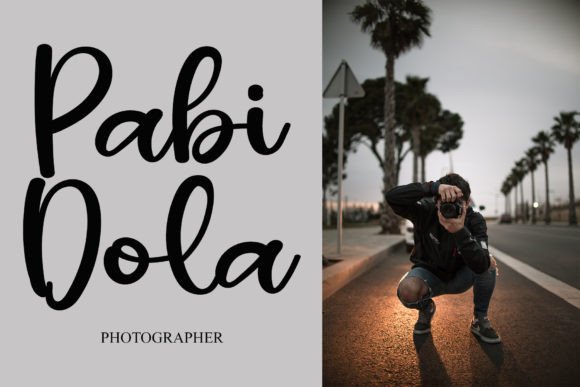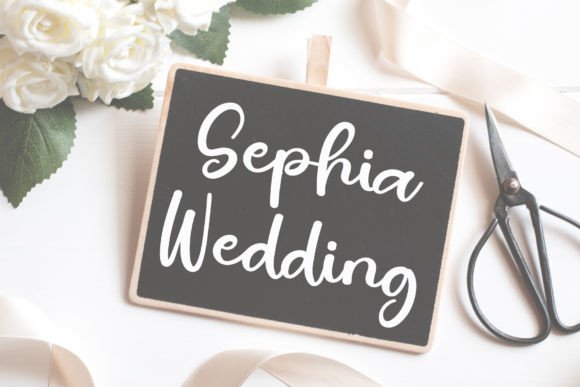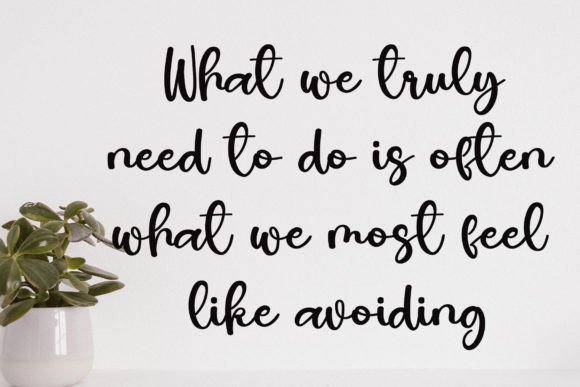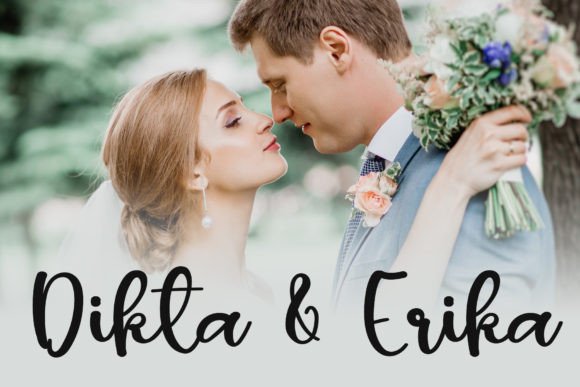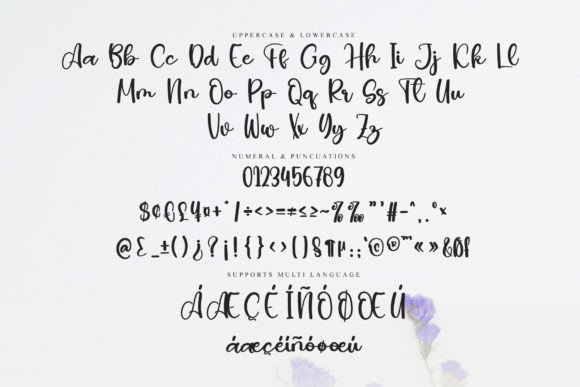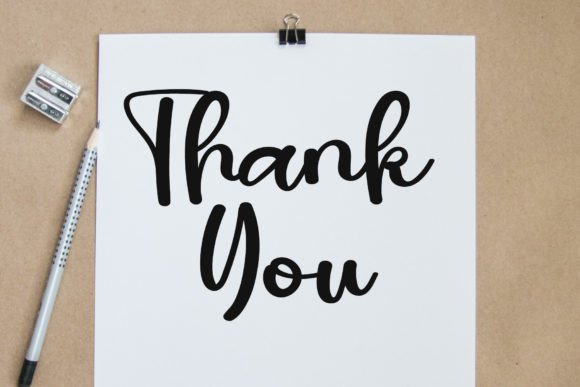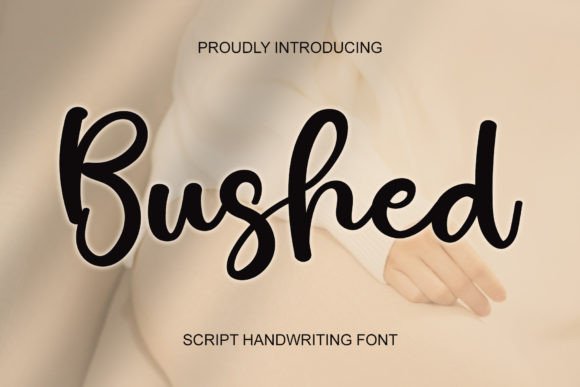
Introducing Bushed Font: Elevate Your Designs with Timeless Elegance
Are you on the hunt for a font that exudes sophistication and style? Look no further than Bushed Font, a stunning handwritten typeface that brings a touch of classic calligraphy to the modern era. With its impeccable form and balanced design, Bushed is the perfect choice for designers and crafters seeking to add a dash of elegance to their projects.
The Inspiration Behind Bushed Font
Bushed Font draws inspiration from the timeless world of classic calligraphy, where the art of beautiful handwriting meets the precision of typography. The creators of Bushed have masterfully captured the essence of traditional calligraphy, infusing it with a contemporary twist that makes it perfect for modern designs. The result is a font that feels both nostalgic and fresh, versatile and sophisticated.
Key Features of Bushed Font
- Stylish Handwritten Design: Bushed boasts a beautiful, handwritten appearance that adds a personal touch to any project. Its elegant strokes and fluid connections make it a joy to use for both digital and print applications.
- Contemporary Atmosphere: While Bushed is rooted in classic calligraphy, it has been designed with a keen eye for modern aesthetics. This balance ensures that it fits seamlessly into contemporary designs without feeling out of place.
- Impeccable Form: One of the standout features of Bushed is its impeccable form. Each letter has been carefully crafted to ensure that the font looks polished and professional, making it suitable for high-end projects.
- Balanced and Varied: Bushed offers a range of characters and glyphs, providing designers with the flexibility to create varied and engaging text. The balanced design ensures that words and sentences flow smoothly, making it a pleasure to read.
Who Can Benefit from Bushed Font?
Bushed Font is a versatile typeface that can be used across a variety of design projects, making it an excellent addition to any designer’s or crafter’s toolkit. Here are just a few examples of who can benefit from Bushed:
- Graphic Designers: Whether you’re working on a branding project, creating marketing materials, or designing a website, Bushed can add a touch of sophistication and elegance to your work.
- Crafters and Makers: If you’re creating handmade products, such as stationery, crafts, or DIY projects, Bushed can help you add a professional and polished touch to your designs.
- Stationery and Wedding Designers: For those specializing in stationery, wedding invitations, or event planning, Bushed offers a beautiful way to create bespoke and memorable designs.
- Pair with Complementary Fonts: Bushed works beautifully when paired with clean, sans-serif fonts. Experiment with different combinations to find the perfect balance for your project.
- Experiment with Sizes and Colors: Don’t be afraid to play with the size and color of Bushed to create visual interest. Its elegant design works well in both large headings and smaller body text.
- Pay Attention to Spacing: To maintain readability, ensure that you leave adequate spacing between lines and around text elements. Bushed’s flowing design benefits from a bit of breathing room.
Bushed Font is a remarkable addition to any designer’s arsenal, offering a perfect blend of classic elegance and modern flair. Its stylish handwritten design, impeccable form, and versatile nature make it an ideal choice for a wide range of projects. Whether you’re a seasoned designer or a crafter looking to elevate your work, Bushed Font is sure to inspire and enhance your creations. Discover the beauty of Bushed today and take your designs to new heights.